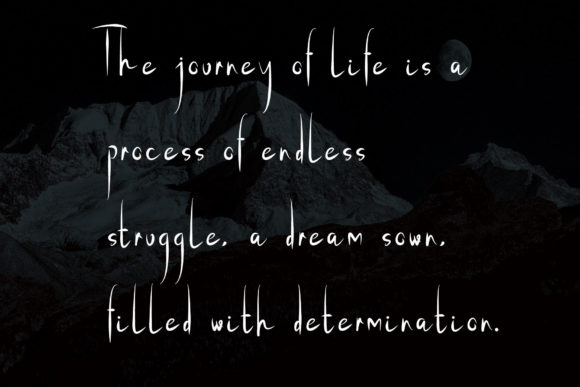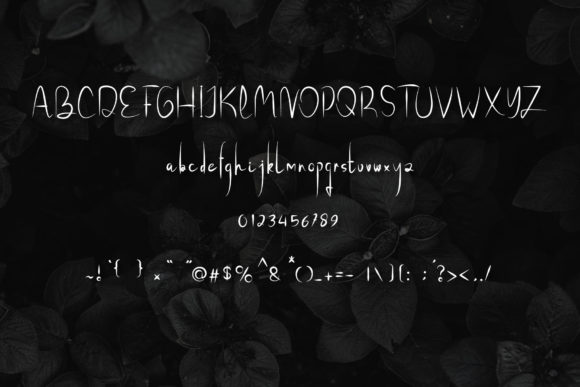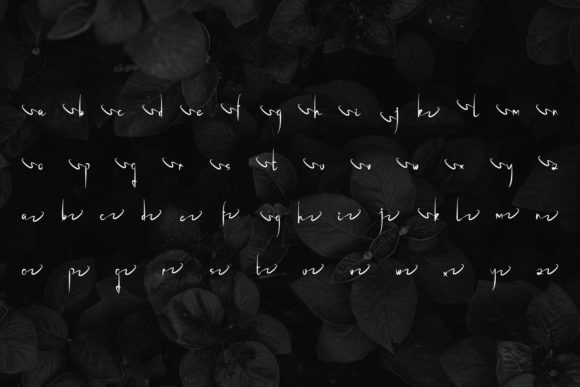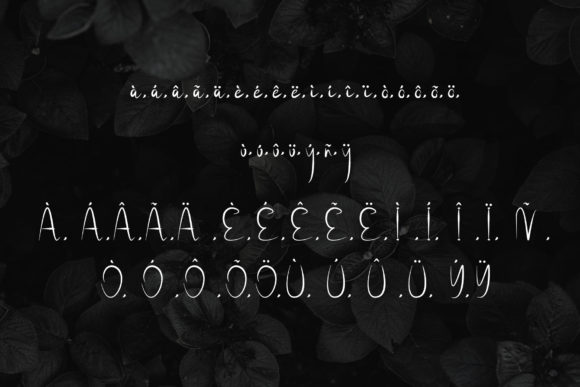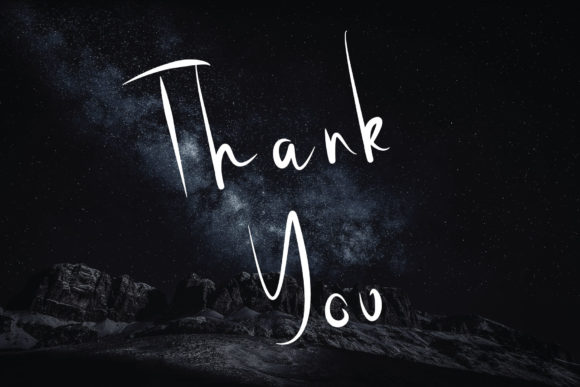
Introducing Frigid Font: The Perfect Choice for Elegant Designs
Are you looking for a font that can add a touch of elegance and sophistication to your designs? Look no further than Frigid Font, a beautiful, cursive, and delicate handwritten font that’s perfect for creating eye-catching logos, branding, and quotes.
What Makes Frigid Font So Special?
Frigid Font is a neat and elegant font that’s designed to make your designs stand out. Its cursive and delicate style gives it a unique and sophisticated look that’s perfect for a variety of design projects. Whether you’re creating a logo, branding materials, or quotes, Frigid Font is the perfect choice.
Key Features of Frigid Font
- PUA Encoded: Frigid Font is PUA encoded, which means you can access all of the glyphs and swashes with ease. This makes it easy to customize your designs and add your own personal touch.
- Handwritten Style: Frigid Font has a beautiful, handwritten style that’s perfect for creating elegant and sophisticated designs.
- Cursive and Delicate: The font’s cursive and delicate style gives it a unique and elegant look that’s perfect for a variety of design projects.
Why Choose Frigid Font?
There are many fonts available, but Frigid Font stands out from the crowd. Here are just a few reasons why:
- Unique Style: Frigid Font has a unique and elegant style that’s unlike any other font. Its cursive and delicate style gives it a sophisticated look that’s perfect for a variety of design projects.
- PUA Encoded: Frigid Font is PUA encoded, which means you can access all of the glyphs and swashes with ease. This makes it easy to customize your designs and add your own personal touch.
How to Use Frigid Font in Your Designs
Frigid Font is easy to use in your designs. Here are a few tips to get you started:
- Logos: Use Frigid Font to create elegant and sophisticated logos that will make your brand stand out.
- Branding: Use Frigid Font to create consistent branding across all of your marketing materials.
- Quotes: Use Frigid Font to create beautiful and inspiring quotes that will engage your audience.
Tips and Tricks for Getting the Most Out of Frigid Font
Here are a few tips and tricks for getting the most out of Frigid Font:
- Experiment with Different Sizes: Frigid Font looks great in a variety of sizes. Experiment with different sizes to find the one that works best for your design.
- Pair with Other Fonts: Frigid Font pairs well with other fonts. Experiment with different font combinations to find the one that works best for your design.
- Use Swashes and Glyphs: Frigid Font is PUA encoded, which means you can access all of the glyphs and swashes with ease. Use these to add a personal touch to your designs.
Frigid Font is a beautiful, cursive, and delicate handwritten font that’s perfect for creating eye-catching logos, branding, and quotes. Its unique style, ease of use, and PUA encoding make it a great choice for designers and crafters. Whether you’re looking to create elegant and sophisticated designs or just want to add a touch of elegance to your projects, Frigid Font is the perfect choice.